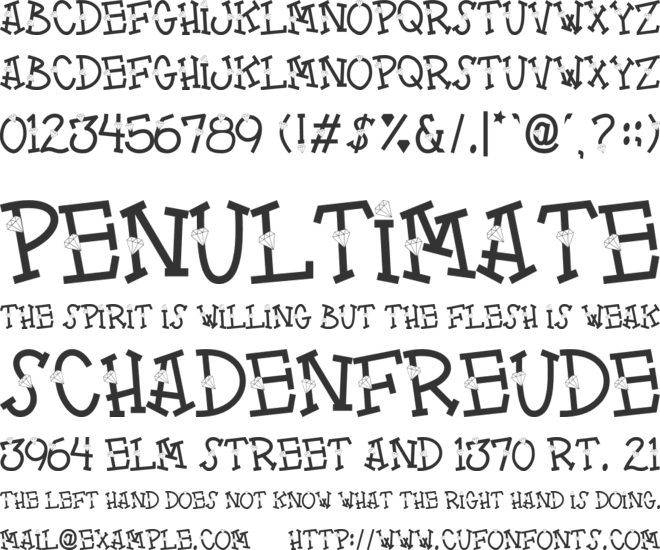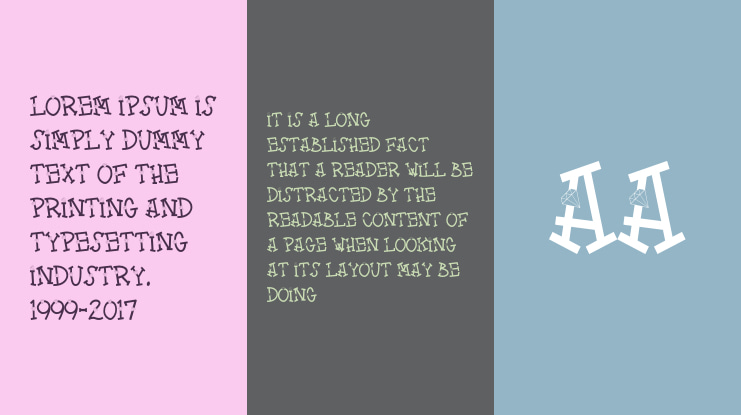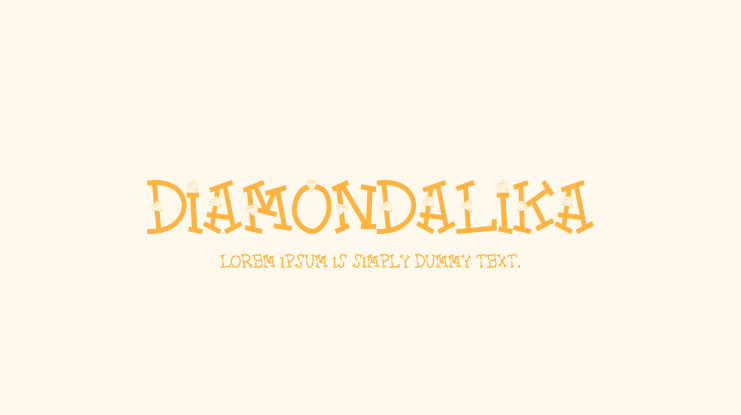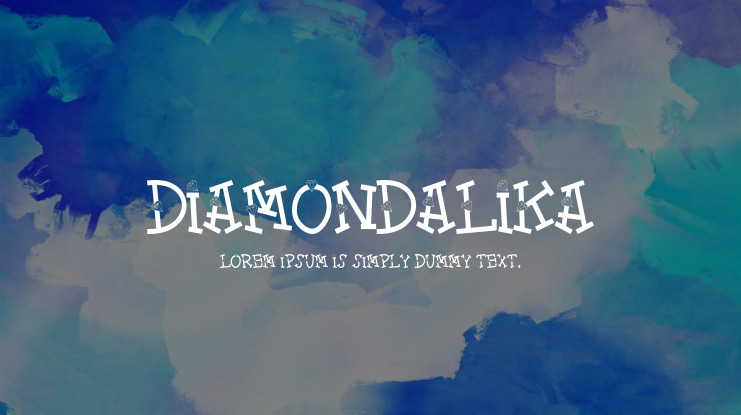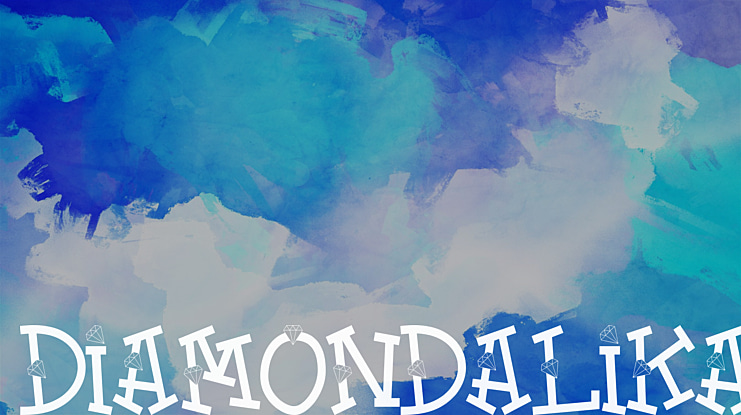
Diamondalika Font
The handwriting font with diamond ornament is a unique and creative type of font that combines the natural and personal feel of handwritten text with intricate diamond ornaments. This font is characterized by its flowing lines and curves, which give it a personal and authentic touch, while the diamond ornaments add a touch of glamour and elegance.